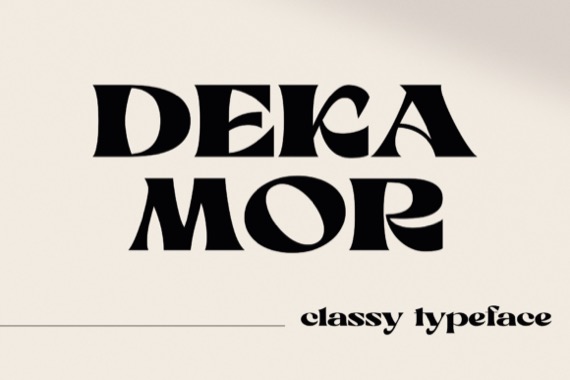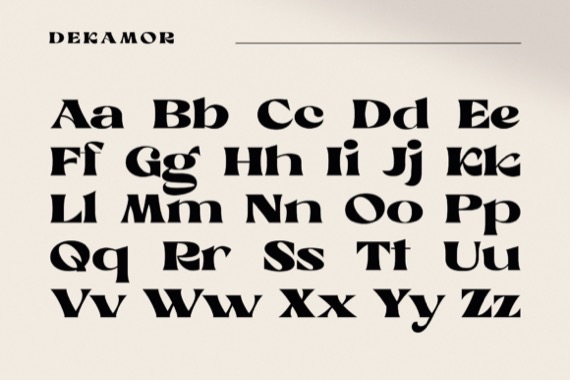
Introducing Dekamor Font from HipFonts, a classy and modern font that will take your designs to the next level. With its strong and confident letterforms, this font is perfect for creating eye-catching headlines, logos, and posters. Its clean lines make it versatile enough for a range of design projects, from branding to editorial layouts.
Dekamor Display Font